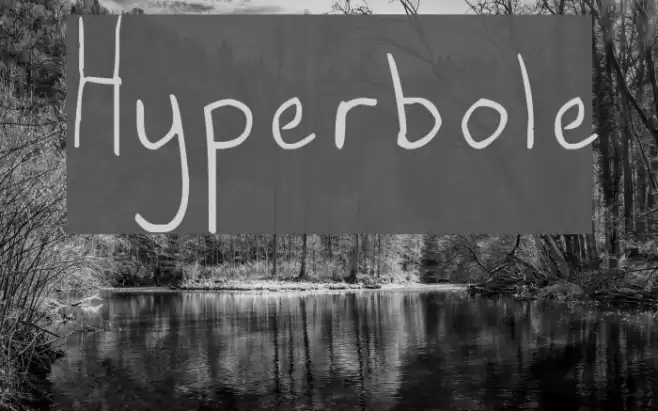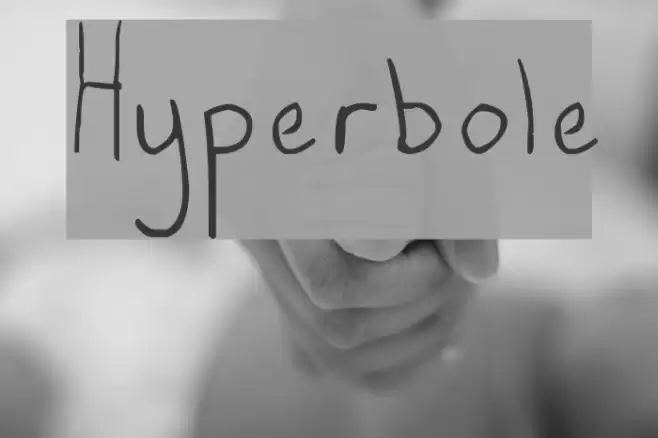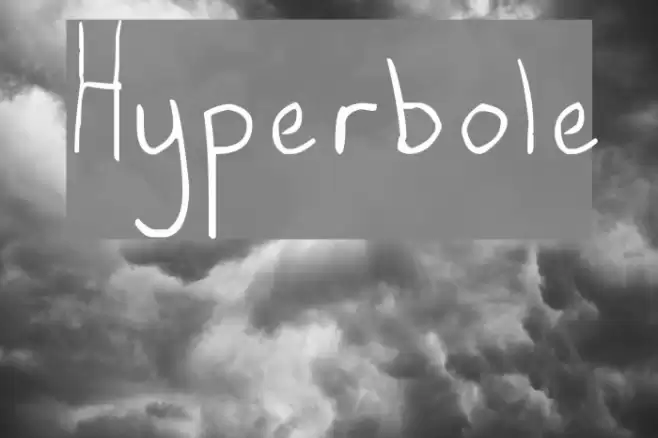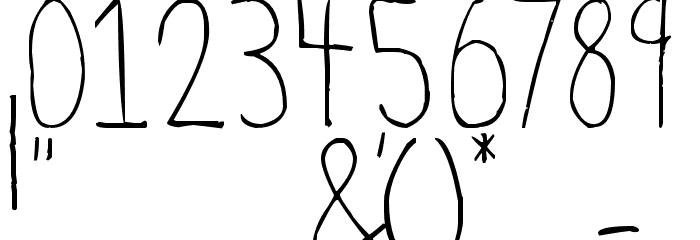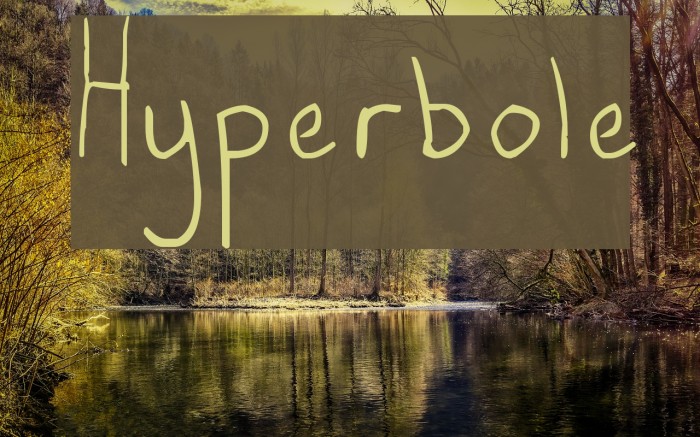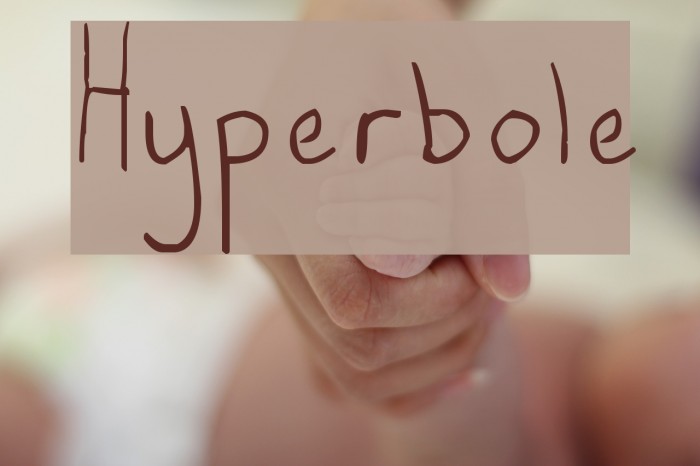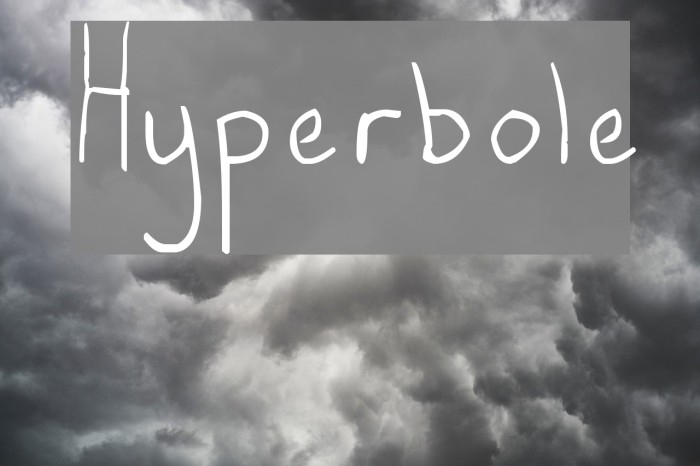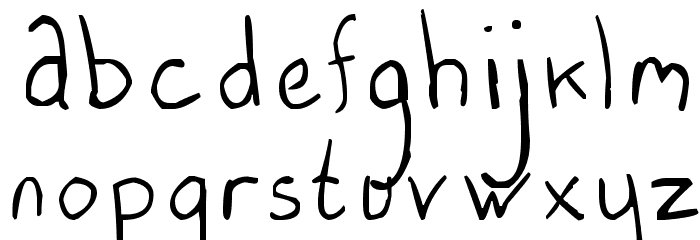
Hyperbole Font
Hyperbole Description
This font features a playful and informal handwritten style, characterized by its irregular strokes and casual appearance. The uppercase letters are tall and slightly narrow, with a whimsical touch that adds personality. The lowercase letters maintain a consistent flow, with some letters like 'g' and 'y' having distinctive loops. Numbers are straightforward yet maintain the font's overall quirky aesthetic. Special characters are integrated seamlessly, enhancing the font's versatility. The overall design is approachable and friendly, making it suitable for projects that require a personal or creative touch.
A playful, handwritten font with irregular strokes and a casual, whimsical style from Uncategorized fonts.
- Proposed Projects: Ideal for greeting cards, children's books, personal blogs, and creative branding projects.
- Overall Style: Casual, Playful
- Use Case: Headlines, Informal text, Creative projects